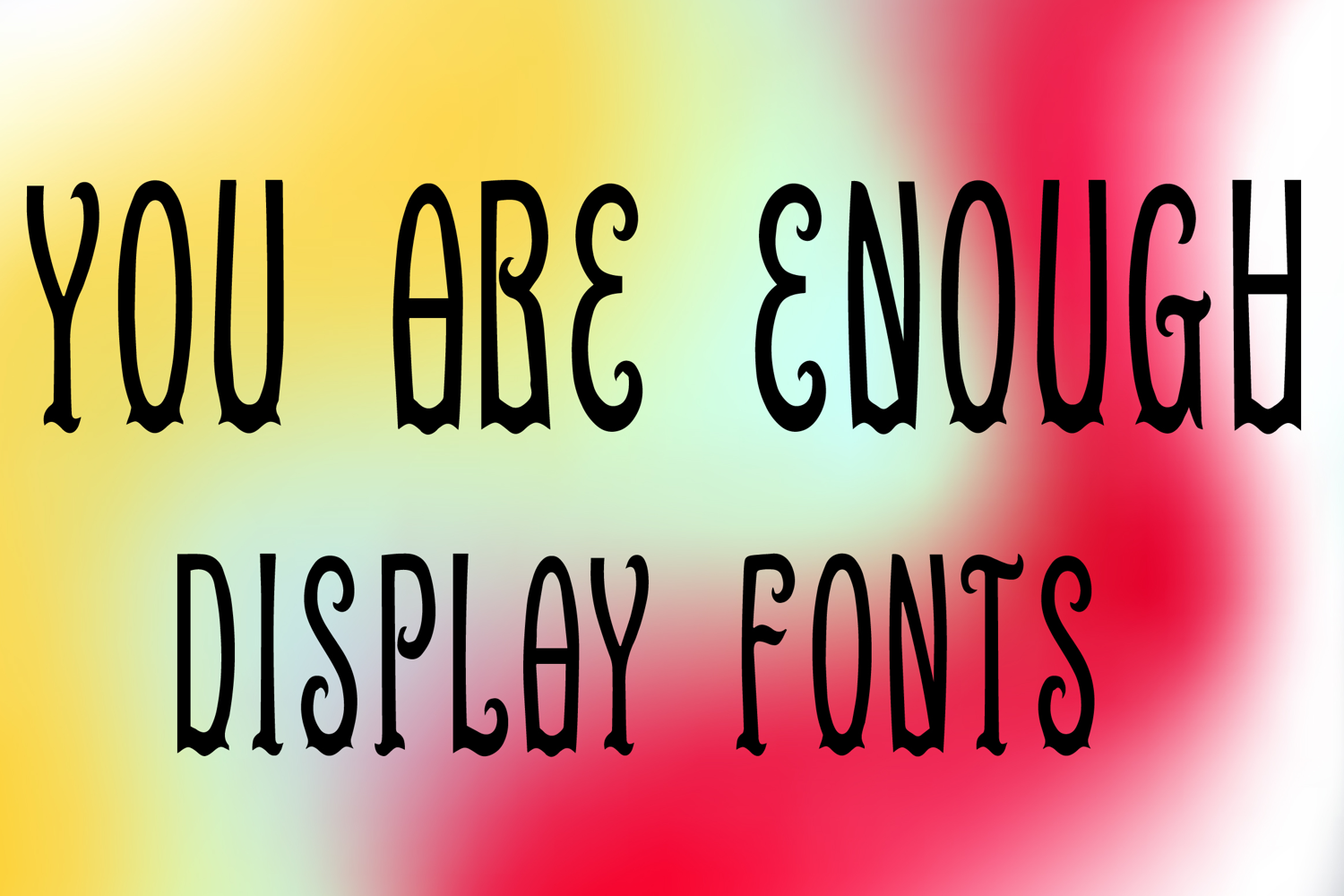
YOU ARE ENOUGH
YOU ARE ENOUGH is a tall decorative display font with a whimsical handcrafted style and elegant vintage charm. Its uppercase letterforms feature slim elongated strokes, gentle curves, and playful curled terminals that create a graceful, expressive, and eye-catching look. Designed with uppercase letters A–Z and numbers 0–9, YOU ARE ENOUGH is perfect for branding, posters, packaging, quotes, invitations, social media graphics, and creative projects that need a heartfelt and memorable statement.